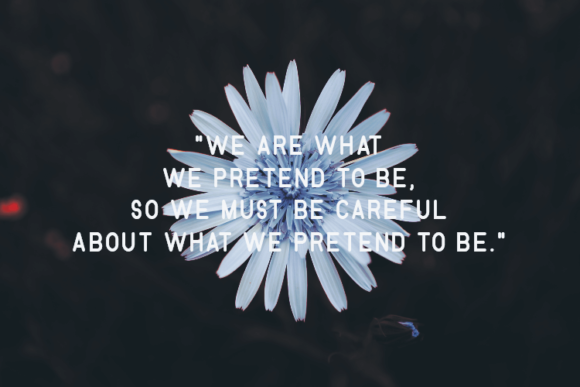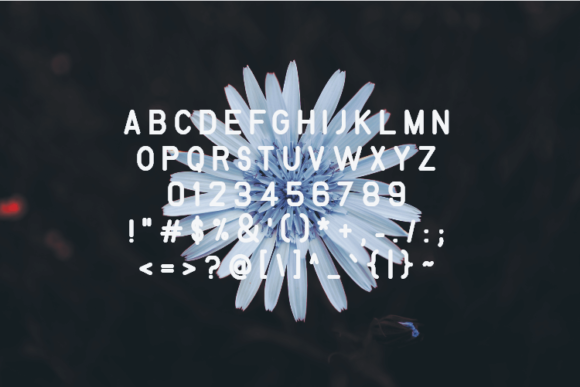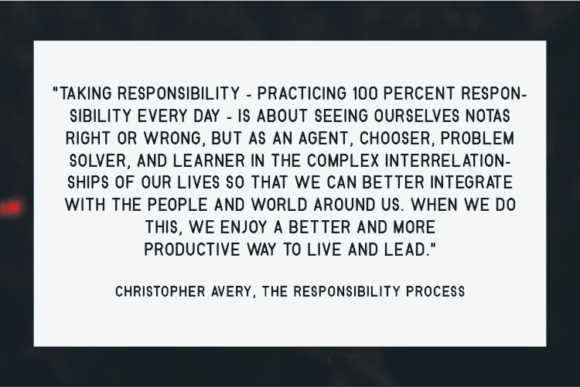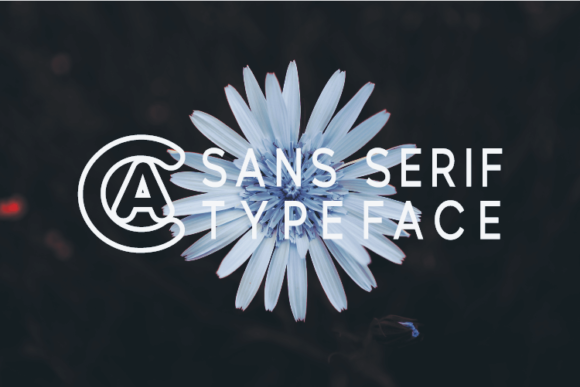
Introduction to Mandeala Font
Mandeala is a modern and classy sans serif typeface.
This extremely versatile font isperfect for logos, weddings, invitations, quotes, advertisements, print, magazines, and more .
Key Features of Mandeala Font
Why Choose Mandeala Font?
Mandeala Font offers exceptional quality and versatility, making it a valuable addition to your design toolkit. Whether you’re creating for personal projects or commercial use, Mandeala Font delivers professional results.